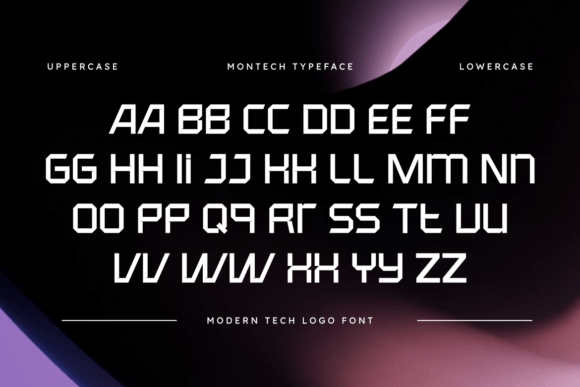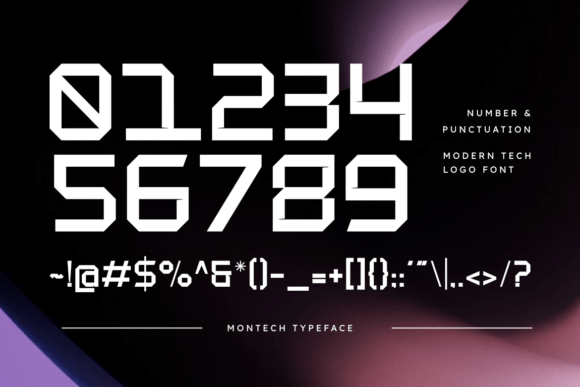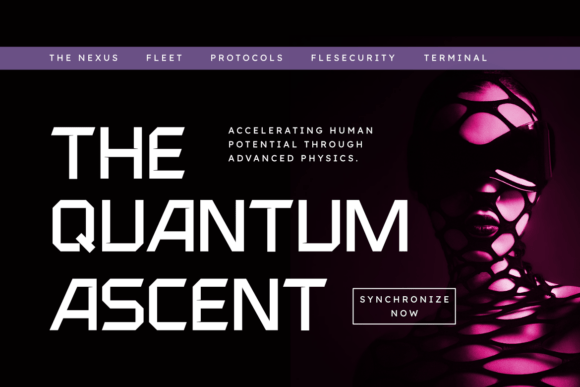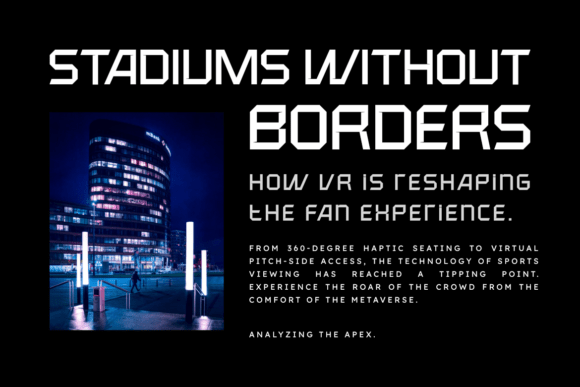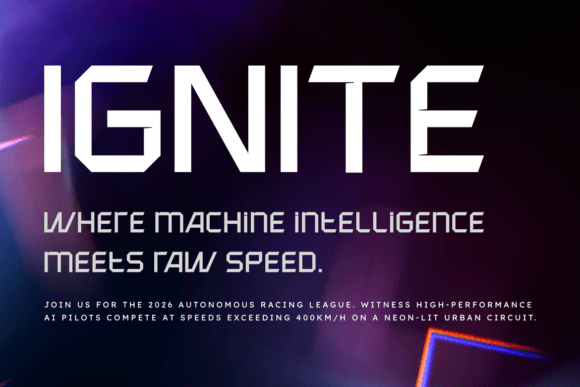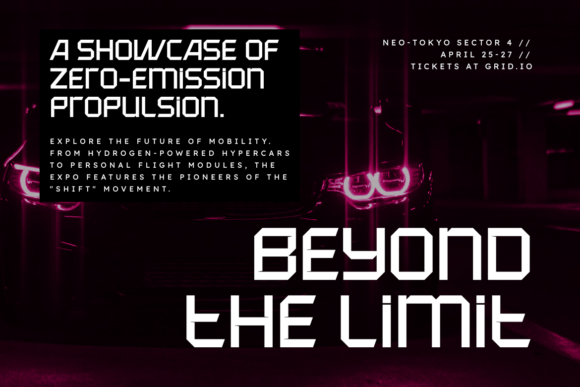
Introduction to Motech Font
Motech is a bold and powerful modern tech logo font designed for impactful and futuristic typography.
With its refined geometric structure and sharp technical lines, this font is perfect for strong headlines, professional tech logos, industrial branding, and high-impact digital posters Its confident and innovative design gives your visuals a striking, professional, and advanced look.